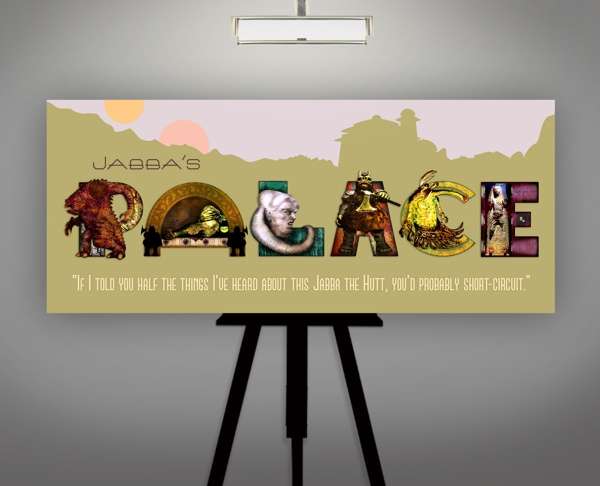
This Star Wars font by Rob Taylor captures different areas from the galaxy far, far away. The popular locales include Cantina, Jabba's Palace and Cloud City.
One really needs to look closely to fully appreciate the works. There are so many intricate details and hidden references within each typeface. The fonts are mostly made out of character and elements from the six movie saga. Each one contains a lovely minimalist background that has the letters pop right off the page.
Intricate Sci-Fi Typefaces
Rob Taylor Creates Incredibly Detailed Star Wars Font